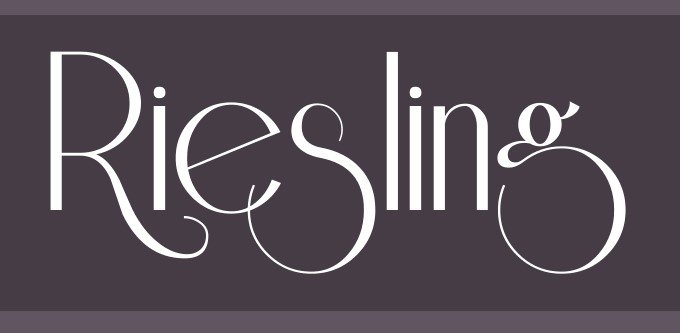
The font was designed with that digital letterform having some handwritten texture which helps you to make the precious designs smartly and efficiently for
Presenting the intelligent vintage typeface known as Riesling Font, offering distinct characteristics and supporting numerous international languages, making it ideal for creating top-notch projects in any language.
The font was designed with that digital letterform having some handwritten texture which helps you to make the precious designs smartly and efficiently for free. You can see the clear strokes of the font in the image.
The Riesling Font is the famous and amazing typeface which was product of Bright Ideas.